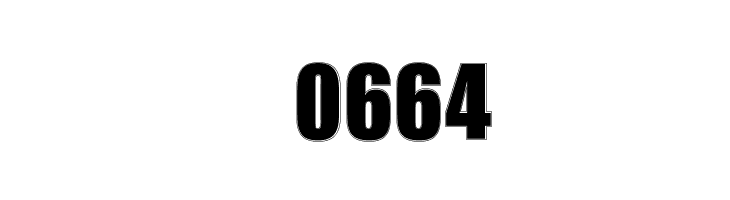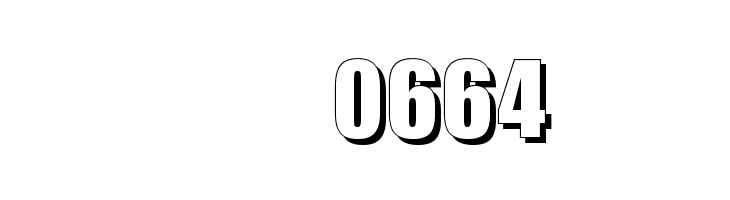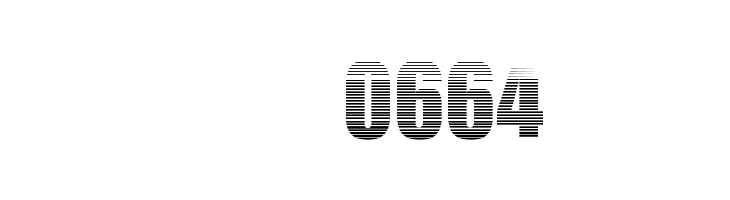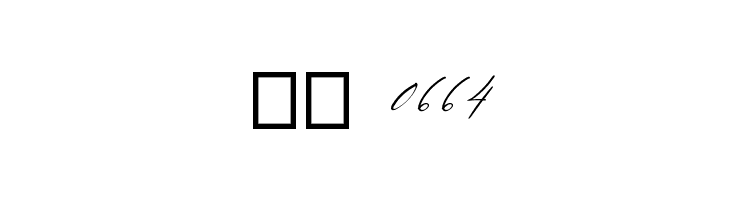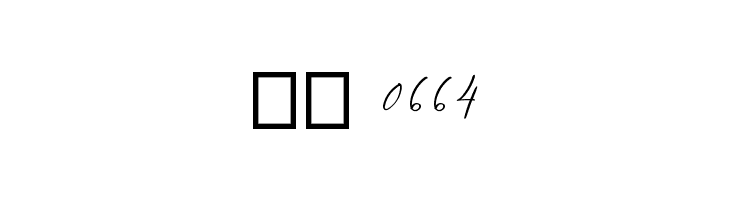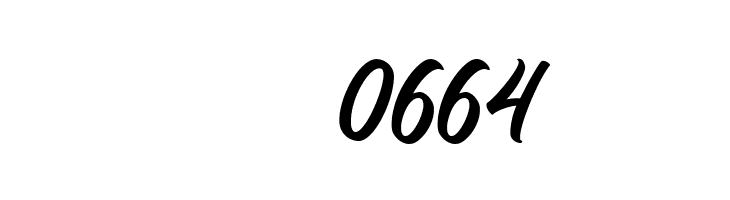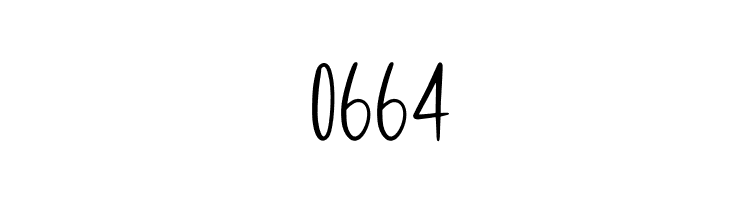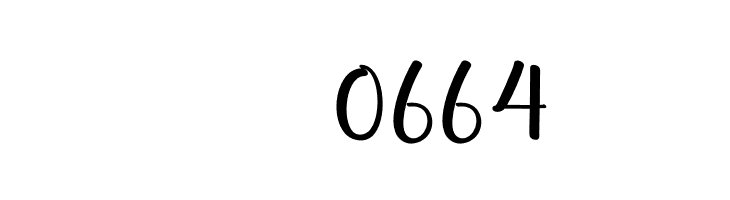
A bold, impactful font with thick, block-like characters ideal for strong visual presence.
A bold, shadowed font ideal for impactful headlines and signage.
A bold, striped font with a unique and energetic design.
A bold, expressive script font with dynamic flow and strong visual impact.
A dynamic, cursive script font with fluid, elegant strokes.
An elegant, flowing script font with modern, artistic curves.
A bold, cursive font with dynamic and flowing characters.
A flowing, cursive script font with elegant loops and swashes.
A modern, elegant script font with flowing, interconnected strokes.
An elegant, cursive italic font with smooth, flowing strokes.
A bold, modern font with thick strokes and rounded edges, ideal for headlines.
A bold, italicized font with a dynamic and modern style.
A bold, modern font with strong, consistent strokes.
A sleek, modern italic font with a clean and elegant design.
A modern, light sans-serif font with clean lines and balanced spacing.
A sleek, modern, light italic font with smooth curves and a sophisticated style.
A modern, geometric sans-serif font with balanced proportions.
A modern, medium-weight italic font with a sleek and dynamic style.
A clean, modern sans-serif font with balanced proportions and excellent readability.
A modern, semi-bold sans-serif font with clean lines and balanced proportions.
A modern, semi-bold italic font with medium contrast and dynamic style.
A playful and whimsical script font with elegant flourishes and interconnected letters.
A lively handwritten font with fluid strokes and playful curves.
An elegant, flowing script font with a handwritten style.
A playful and expressive handwritten font with dynamic, flowing letterforms.
A bold, playful font with a hand-drawn, irregular style.
A bold, handwritten font with a playful and energetic style.
A bold, stencil-style font with cutouts for an industrial look.
An elegant script font with flowing, cursive letterforms and classic calligraphic style.
A playful handwritten font with elegant, slender uppercase and rounded lowercase letters.
A delicate, flowing script font with a modern, handwritten style.
A playful and elegant script font with fluid, connected strokes.
A flowing, handwritten cursive font with elegant and connected letters.